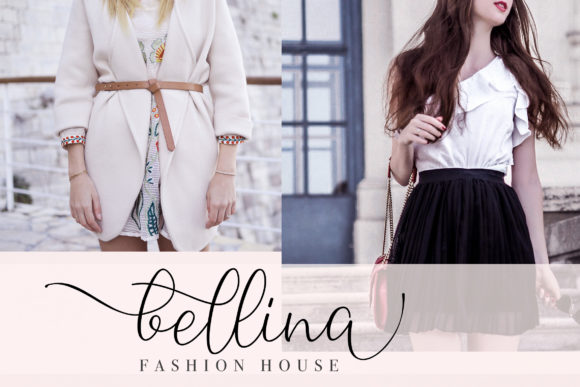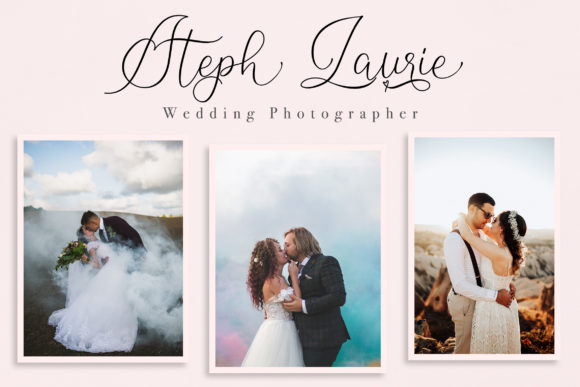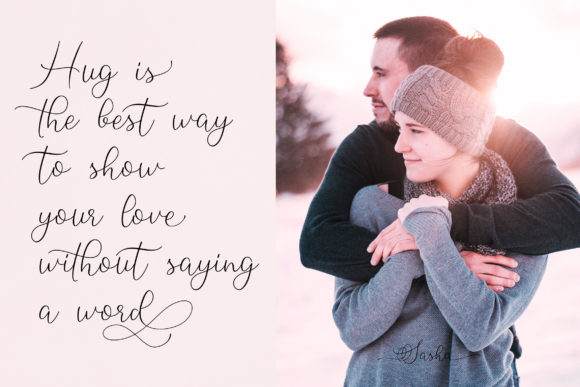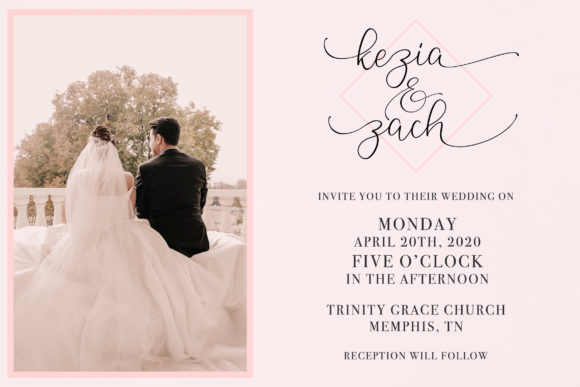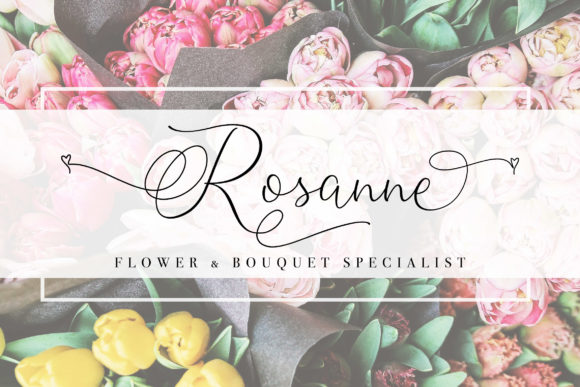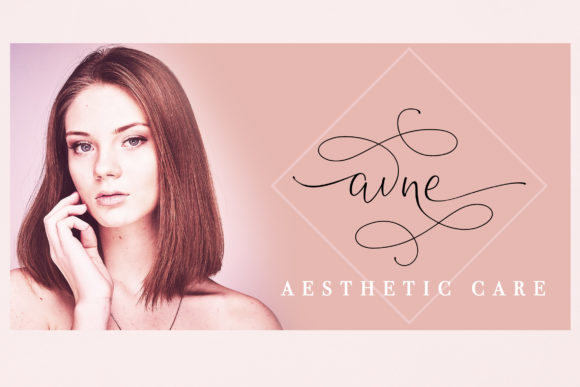
Introduction to Meillyne Font
Have you ever been working on a creative project, pouring your heart and soul into it, and then you come across that one perfect design element that takes it to the next level? For designers, finding the right font can be just that game-changing moment. Imagine being able to add a touch of elegance and sophistication to your project with a single click. This is exactly what Meillyne Font offers.
Meillyne Font is a stunning script font that boasts a unique calligraphic style, complete with gorgeous swashes that add a decorative touch to any project. Whether you’re working on a branding project, a wedding invitation, or a social media campaign, Meillyne Font is sure to make your design stand out.
Key Features of Meillyne Font
- Unique, elegant design with a transparent background, making it perfect for overlaying on images or videos.
- Perfect for designers, artists, and content creators working on creative projects that require a touch of sophistication and elegance.
- Meillyne Font is an excellent design resource for those seeking a high-quality, free font for their creative projects.
- Supports a wide range of languages, making it a versatile design resource for designers and content creators worldwide.
Honest Review: Meillyne Font
I recently stumbled upon the Meillyne Font and I must say it’s a hidden gem for designers. With its high quality and transparent background, it’s perfect for adding a touch of elegance to any creative project.
What works well: ✨ The font’s versatility and clean design make it suitable for various design projects, from branding to editorial work. The free download is also a plus, making it accessible to designers of all levels.
Some limitations: ⚠️ The font’s thin lines may not be suitable for projects with small text sizes or those requiring bold typography. Additionally, the font’s style may not be ideal for projects requiring a more modern or futuristic look.
Overall, I’m impressed with the Meillyne Font. Its high quality and versatility make it a valuable addition to any design resource. Whether you’re working on a creative project or just need a reliable font, the Meillyne Font is definitely worth checking out.
Tips for Getting the Most Out of Meillyne Font
Experiment with different font sizes, colors, and backgrounds to create a visually appealing design. Consider using a transparent background to add depth to your project.
Meillyne Font is perfect for creating:
- Branding materials, such as logos and business cards
- Marketing materials, such as brochures and flyers
- Digital content, such as social media graphics and blog posts
Alternatives to Meillyne Font
Great Vibes Font is a beautiful, elegant script font perfect for creative projects. It’s ideal for use on a transparent background, adding a touch of sophistication to any design. Great Vibes Font is a free download, making it a great resource for designers on a budget. When to use: Wedding invitations, branding materials, or any design that requires a high-quality, elegant script.
Comparison to Meillyne Font: Great Vibes Font has a more refined, classic look compared to Meillyne Font’s more playful, handwritten feel. While both fonts are high-quality, Great Vibes Font is better suited for formal designs, while Meillyne Font excels in more casual, creative projects.
Carolyna Pro Font is a modern, stylish font ideal for use in creative projects. It’s perfect for designs with a transparent background, and its high-quality design makes it a great resource for designers. When to use: Branding materials, advertisements, or any design that requires a modern, stylish font.
Comparison to Meillyne Font: Carolyna Pro Font has a more sleek, modern look compared to Meillyne Font’s more whimsical feel. While both fonts are high-quality, Carolyna Pro Font is better suited for designs that require a clean, minimalist aesthetic, while Meillyne Font excels in more creative, playful projects.